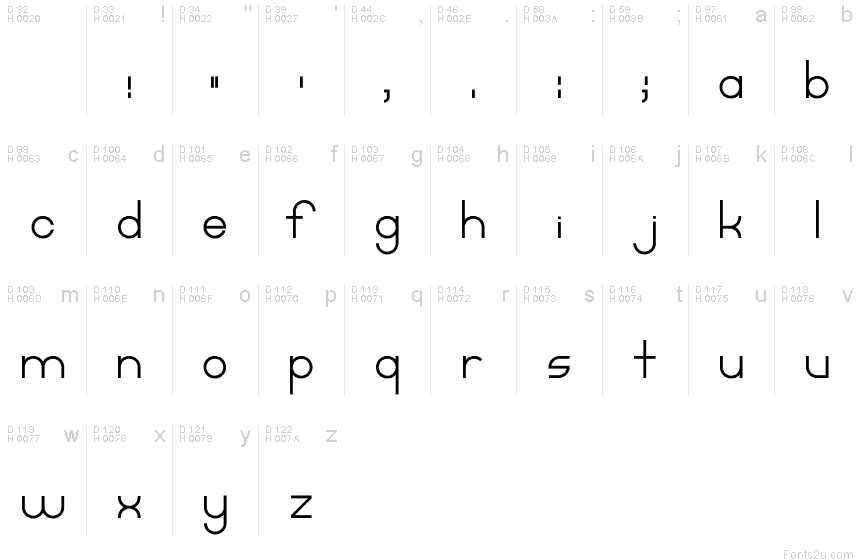
CenturyGothicAgain?!?! by iFutureMix of FontStruct is a free geometric sans serif built from fine, nearly even strokes. Broad circular curves give the letters an open, airy silhouette, with generous proportions and simple joints throughout the design. The construction is clean and spare.
Designers working in fashion and contemporary culture can use its measured geometry for magazine mastheads, exhibition posters, and cosmetics packaging. Its restrained, rounded forms also suit architecture studios and gallery brands seeking lettering that feels precise without looking corporate.